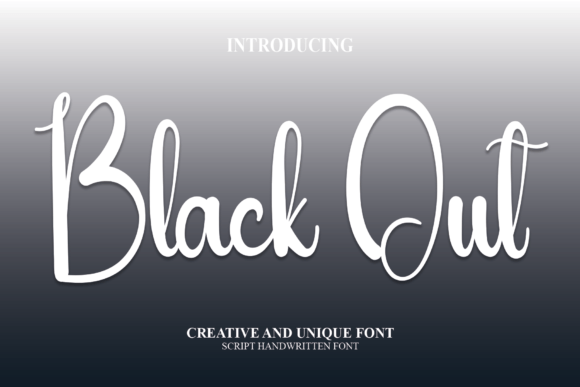
Black out Font
About Black Out Font
Black Out font is a simple and friendly handwritten typeface designed to add a warm, approachable feel to your creative projects. Its clean and natural style makes it a versatile choice that fits well with crafts, digital designs, presentations, and greeting cards.
Simple and Friendly Handwritten Style
The Black Out fon features smooth, easy-to-read strokes with a natural handwritten look. This font’s balanced and clear letterforms help bring a personal and inviting touch to both casual and professional projects.
Ideal Uses for Black Out Font
This versatile font works beautifully for:
• Craft and DIY projects
• Digital and print presentations
• Greeting cards and invitations
• Branding and social media content
• Personal notes and creative layouts
Use Blac Out font to add friendliness and simplicity to your designs.
Why Choose Black Out Font?
Designers choose Black Out for its:
• Simple and friendly handwritten style
• Clear, readable letterforms
• Versatility across multiple platforms and media
Add Warmth and Approachability to Your Designs
Typography influences how your audience perceives your message. The Black Out fon adds warmth and an inviting feel, helping your designs connect emotionally. Perfect for any occasion, this font is a reliable choice for adding a handwritten touch.
Final Thoughts on Black Out Font
In summary, Black Out fon is a simple and friendly handwritten script perfect for designers seeking a warm and versatile fon. Add Black Out to your collection to create memorable and approachable designs.